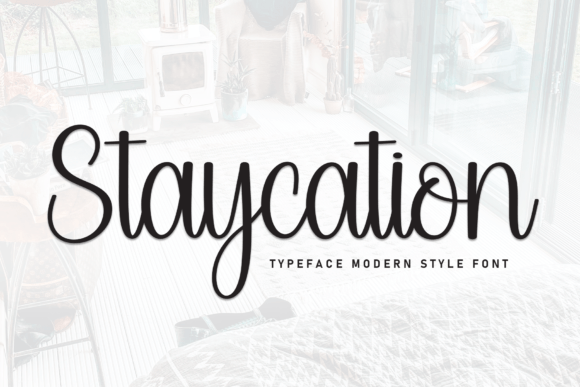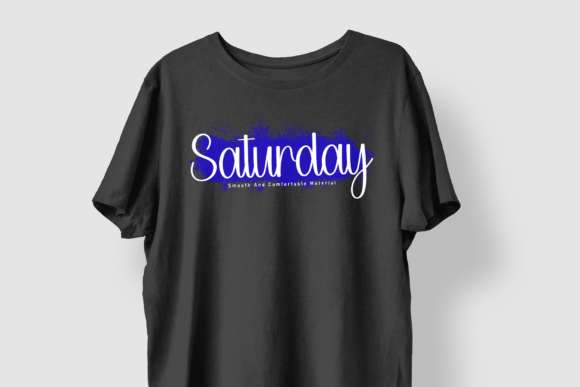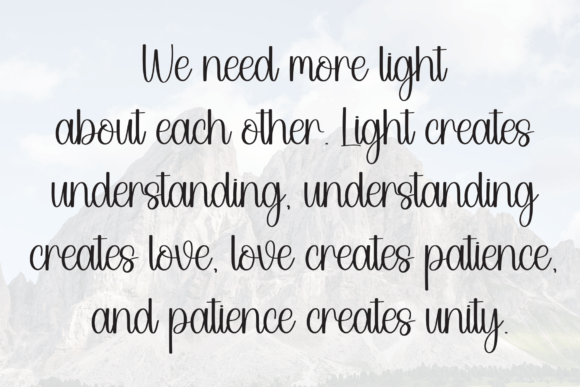
Staycation Font
Staycation is a fun and versatile handwritten font. Whether you’re using it for crafting, digital designing, presentations, or greeting card making, it’s perfect!